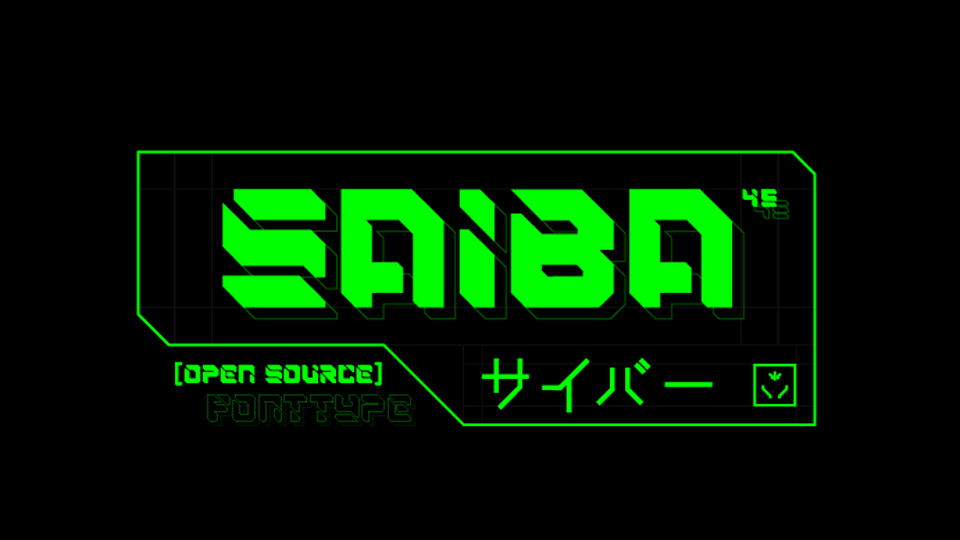
Download SAIBA-45 font, a display typeface that was inspired by CyberPunk, NeoTokyo, Mecha, Manga/Anime, Retro, Tech, and Futuristic styles. It was intended to be used for short-form and large-format displays, but not limited to this type of application.